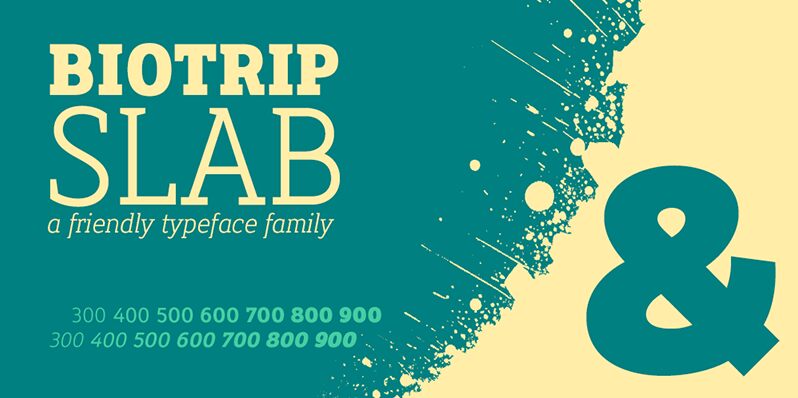
Biotrip Serif font family by deFharo is a free typeface that combines modern interpretation with a vintage-inspired aesthetic. It’s a refined font that holds a strong presence and is suitable for a variety of applications. Striking yet approachable, the serif style demonstrates the designer’s great sense of detail and vision. Although its various styles offer versatility, all weights and widths share high readability and transparency of the composition.
Biotrip Serif is versatile and suitable for branding, headlines, and posters. The versatile font can also easily be applied to more structured and neat solutions, such as layouts for brochures, product packaging, business cards, logos, and many more typography projects.
Biotrip Serif is a humanist slab serif typeface that harmoniously blends rational geometry with the boldness characteristic of Egyptian styles and the sensitivity found in hand-drawn strokes.
Slab serifs, with their square serifs that evoke strength and stability, create a compelling dialogue between robust forms and intricate details. This specific family elevates the design by incorporating square serifs at the base, providing a firm and contemporary foundation, while introducing lapidary serifs at the top that are lighter and sharper. This combination not only breaks visual monotony but also elegantly guides the viewer's eye, resulting in a unique visual interplay that infuses lightness, dynamism, and rhythm into each word. The refinement of Biotrip Serif breathes new life into traditional slab structures.
The Biotrip Serif family consists of 14 fonts, available in 2 styles (Regular and Italic) and 7 weights: Light, Regular, Medium, Semi Bold, Bold, Extra Bold, and Black.